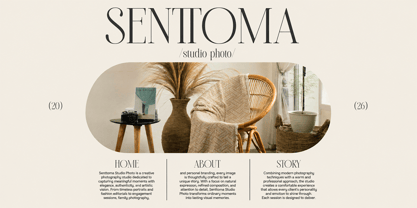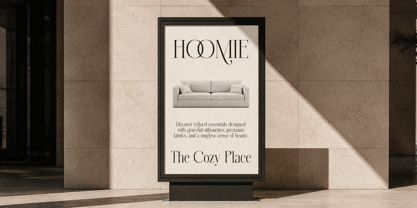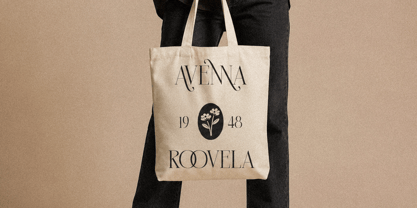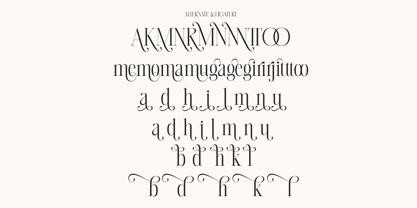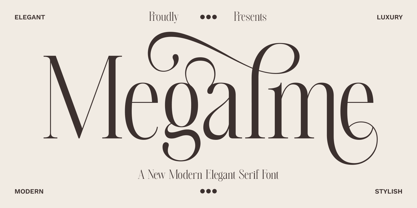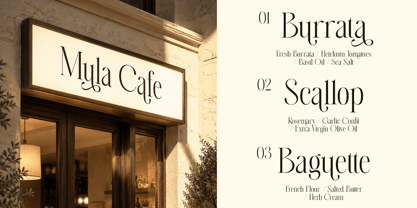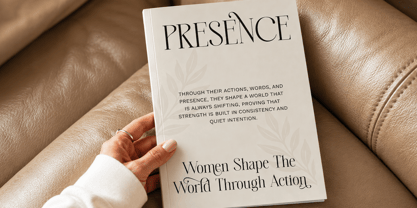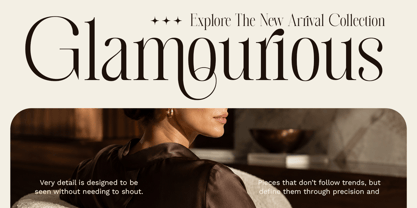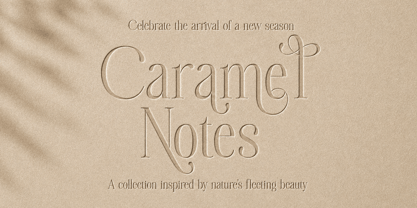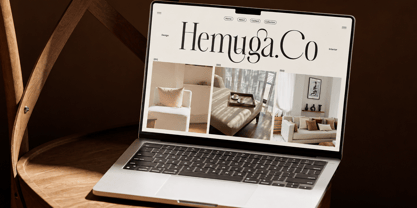
Megalme
The Megalme Font Family was designed by M Akmal and published by Mega Type. Megalme contains 1 styles. More about this family
Megalme is a sophisticated modern serif display font that blends high-fashion elegance with a distinctly artistic personality. Its striking high-contrast letterforms feature delicate hairlines, bold vertical strokes, refined serifs, and graceful curves that create a luxurious editorial feel. The font’s distinctive alternate characters and expressive ligatures add an ornamental touch, giving words a more bespoke and sophisticated appearance. Its dramatic proportions and flowing swashes make it especially effective when typography needs to become the visual centerpiece of a design.
This font is particularly well suited to fashion and beauty branding, luxury logos, magazine covers, editorial layouts, wedding stationery, invitations, perfume and cosmetics packaging, jewelry branding, boutique identities, and sophisticated social-media graphics. It works beautifully for headlines, brand names, titles, monograms, and short display text where elegance and visual impact are important. Because of its elaborate details and high-contrast style, Megalme is best used at larger sizes rather than for long paragraphs or small body copy. The combination of classic serif character and contemporary styling makes it an excellent choice for projects seeking a luxurious, feminine, stylish, glamorous, and premium aesthetic.